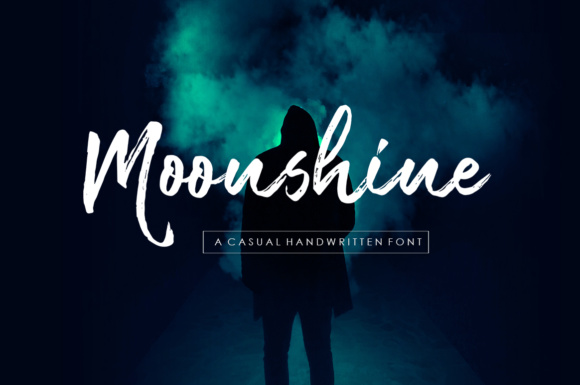
Introducing Moonshine Brush Script Font, a captivating addition to your font collection! Created by Youngtype, this friendly and versatile brush stroke font is exactly what your designs have been missing. With its elegant yet modern appeal, Moonshine is bound to make your creations stand out from the crowd.
Moonshine Brush Script Font is the perfect choice for those looking to add a touch of sophistication to their projects. Its dry brush stroke style adds a unique and artistic flair, making it suitable for a wide range of design purposes. Whether you're designing a logo, creating stunning graphics, or even crafting invitations, this font will effortlessly elevate your work to new heights.
One of the most remarkable features of Moonshine is its ability to evoke emotion. Its captivating strokes and flowing curves create a sense of warmth and friendliness that instantly connects with your audience. Imagine the impact it will have on your branding materials, social media posts, or website headers. Moonshine Brush Script Font will leave a lasting impression, making your content impossible to ignore.
With Moonshine, you'll have the power to transform your designs into memorable works of art. Its versatility allows it to seamlessly adapt to different themes and styles. Whether you're aiming for a vintage-inspired look, a playful and whimsical vibe, or a sleek and modern aesthetic, this font has got you covered. It effortlessly adapts to your creative vision, giving you the freedom to explore countless possibilities.
But Moonshine Brush Script Font isn't just visually stunning; it's also incredibly easy to use. Its smooth and consistent brush strokes ensure legibility while maintaining a natural handwritten feel. Say goodbye to dull and lifeless typography and embrace the dynamic energy that Moonshine brings to your projects.
Remember, great design starts with the right font, and Moonshine Brush Script Font is the ultimate choice for those who strive for excellence. Add a touch of elegance, modernity, and emotion to your designs with Moonshine. Elevate your creativity, leave a lasting impression, and make your artistic vision a reality.